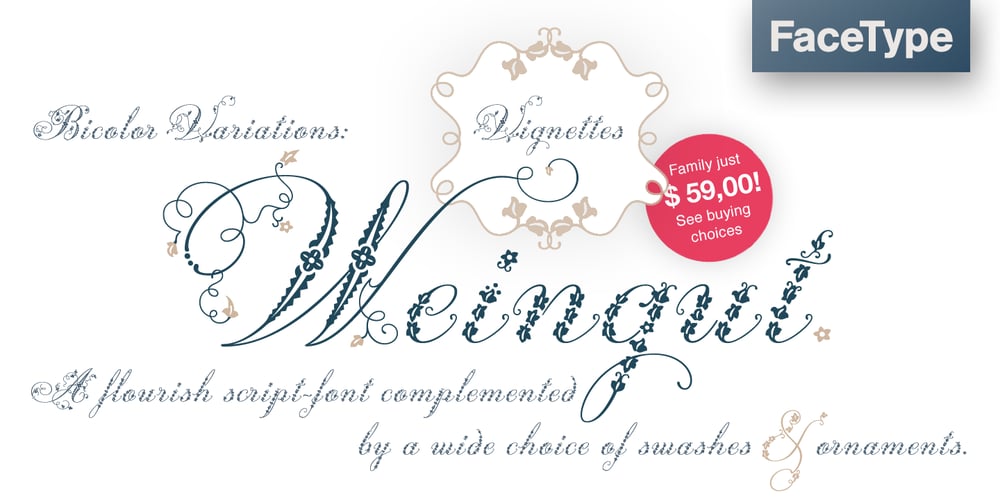
Weingut Script Font Family was designed by published by FaceType. Weingut Script contains 4 styles and family package options. Blossoms, leaves, buds and tendrils create fragile objects of words and letters. · Weingut Script Flourish is a decorative display font with high contrasts, perfectly hand-drawn to the tiniest details. The font is trimmed to fairly large font sizes and is highly suitable for chapter titles or book jackets as well as Headlines, Invitations and wine labels :), although also impressing with an astounding legibility in small typesettings. Inspired by the handmade Blätterschrift from the 19th century Mettenleiter’s Schriftenmagazin, its basic structure is related to the English Script which makes it a perfect wedding font. The Weingut Family – noticable bouquet, beautiful structure with full fruit and a long finish. · Design with bicoloured capitals: In Weingut Script and Weingut Flourish, leaves and letters are available separately. You can stack them and apply different colours to the foreground and background. · Decoration and patterns: Weingut Swashes and Ornaments offers extra decorative elements in a separate font. Leaves, flourishes and borders available on their own or merged to ornaments. · Please make sure to use an application that supports the layering of text (two-coloured capitals) and OpenType features (contextual alternates). Be aware if you intend to combine Weingut Script Flourish and Weingut Flourish that these two do not go together. The floral outlines differ slightly and inaccurate overlaps will be the end result. · View other fonts from Georg Herold-Wildfellner: Sofa Serif | Sofa Sans | Mila Script Pro | Pinto | Supernett | Mr Moustache | Aeronaut | Ivory | Weingut · Language Report for Weingut Script / 151 languages supported: Abenaki, Afaan Oromo, Afar, Afrikaans, Albanian, Alsatian, Amis, Anuta, Aragonese, Aranese, Arrernte, Arvanitic, Asturian, Aymara, Basque, Bikol, Bislama, Breton, Cape Verdean, Catalan, Cebuano, Chamorro, Chavacano, Chickasaw, Cofan, Corsican, Danish, Dawan, Delaware, Dholuo, Drehu, Dutch, English, Estonian, Faroese, Fijian, Filipino, Finnish, Folkspraak, French, Frisian, Friulian, Galician, Genoese, German, Gooniyandi, Greenlandic, Guadeloupean, Gwichin, Haitian Creole, Han, Hiligaynon, Hopi, Icelandic, Ido, Ilocano, Indonesian, Interglossa, Interlingua, Irish, Italian, Jamaican, Javanese, Jerriais, Kala Lagaw Ya, Kapampangan, Kaqchikel, Kikongo, Kinyarwanda, Kiribati, Kirundi, Klingon, Latin, Latino Sine, Lojban, Lombard, Low Saxon, Luxembourgish, Makhuwa, Malay, Manx, Marquesan, Meriam Mir, Mohawk, Montagnais, Murrinhpatha, Nagamese Creole, Ndebele, Neapolitan, Ngiyambaa, Norwegian, Novial, Occidental, Occitan, Oshiwambo, Palauan, Papiamento, Piedmontese, Portuguese, Potawatomi, Qeqchi, Quechua, Rarotongan, Romansh, Rotokas, Sami Southern, Samoan, Sango, Saramaccan, Sardinian, Scottish Gaelic, Seri, Seychellois, Shawnee, Shona, Sicilian, Slovio, Somali, Sotho Northern, Sotho Southern, Spanish, Sranan, Sundanese, Swahili, Swazi, Swedish, Tagalog, Tetum, Tok Pisin, Tokelauan, Tshiluba, Tsonga, Tswana, Tumbuka, Tzotzil, Uzbek, Venetian, Volapuk, Voro, Walloon, Waraywaray, Warlpiri, Wayuu, Wikmungkan, Wiradjuri, Xhosa, Yapese, Yindjibarndi, Zapotec, Zulu, Zuni